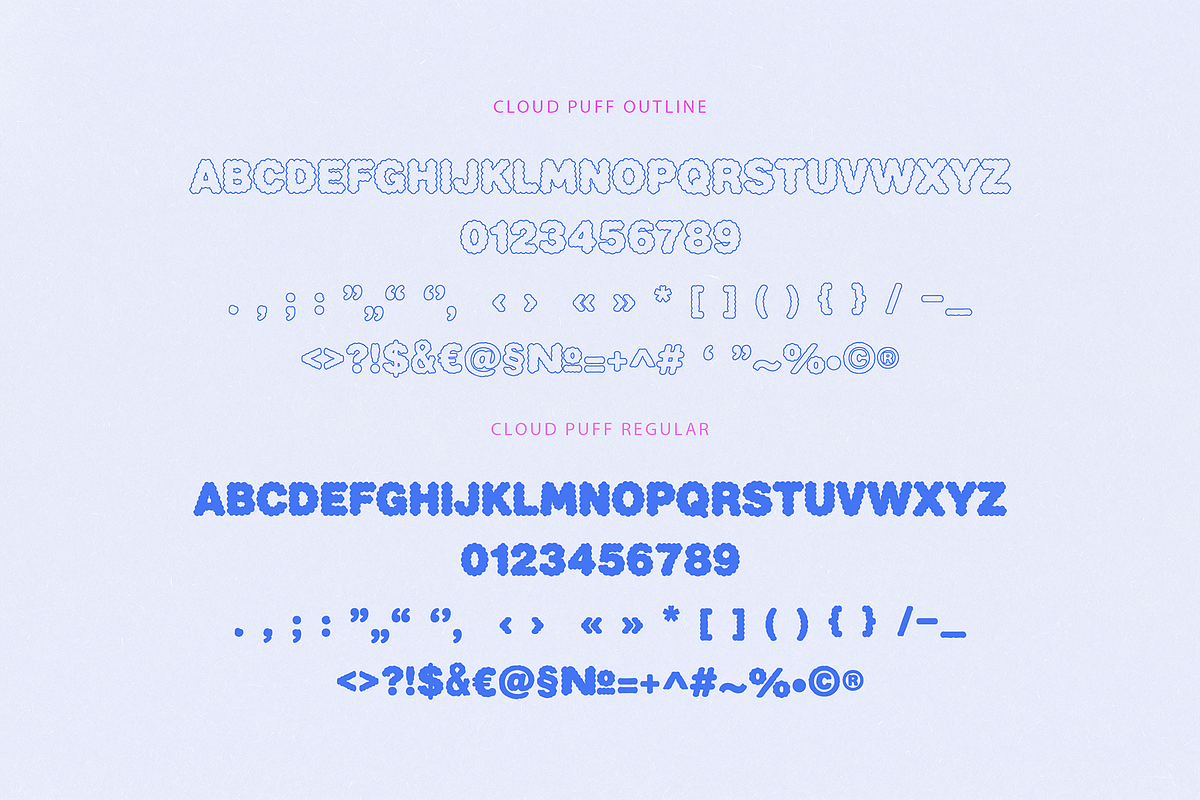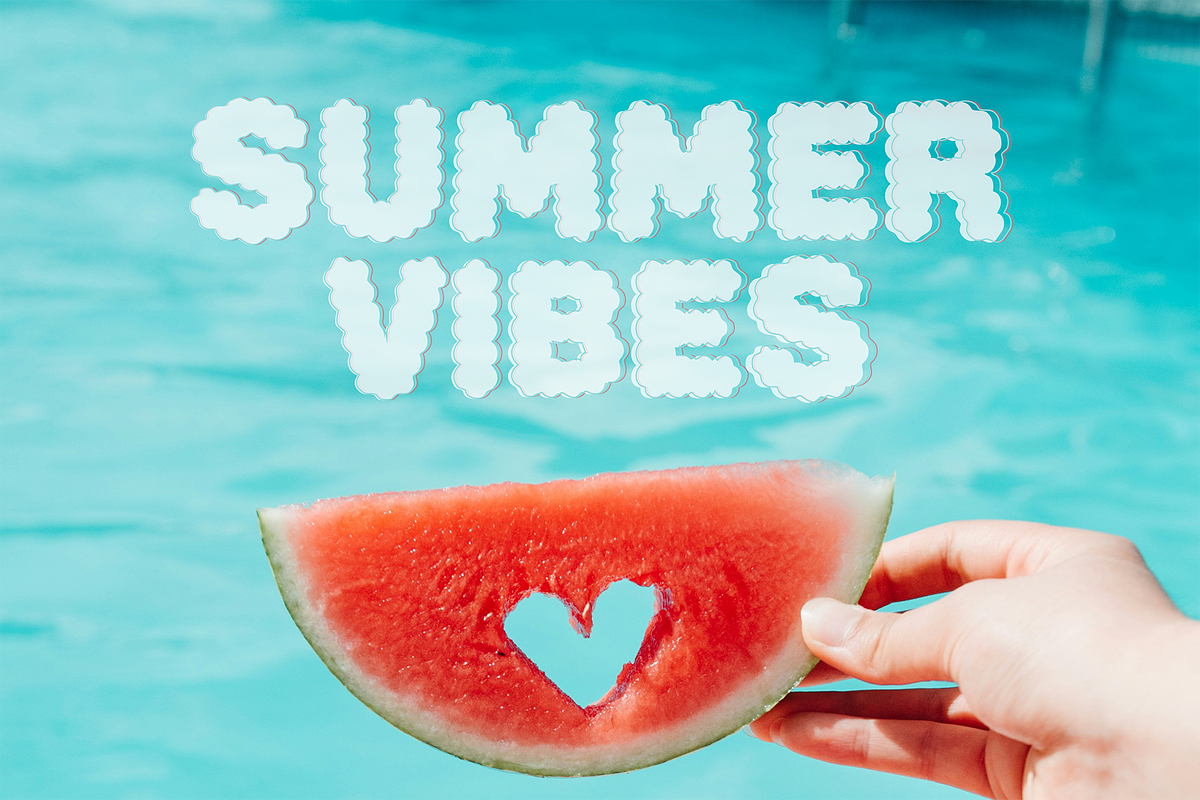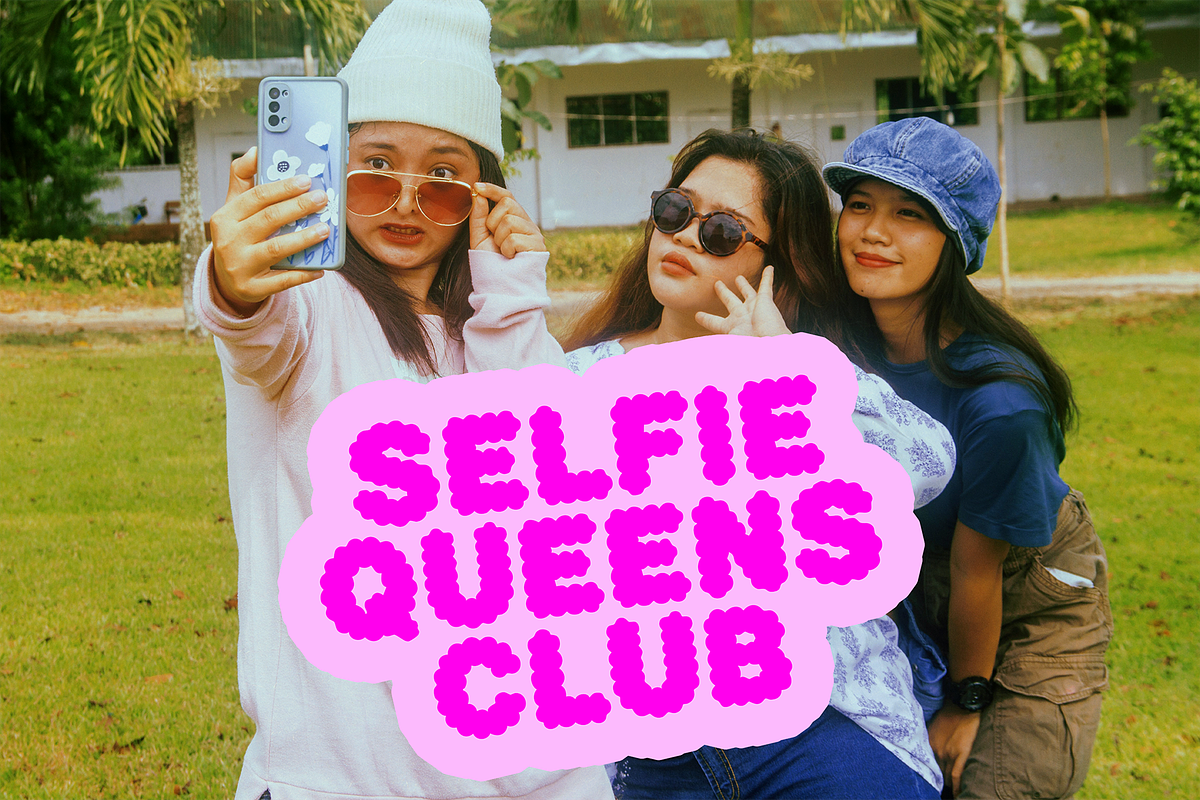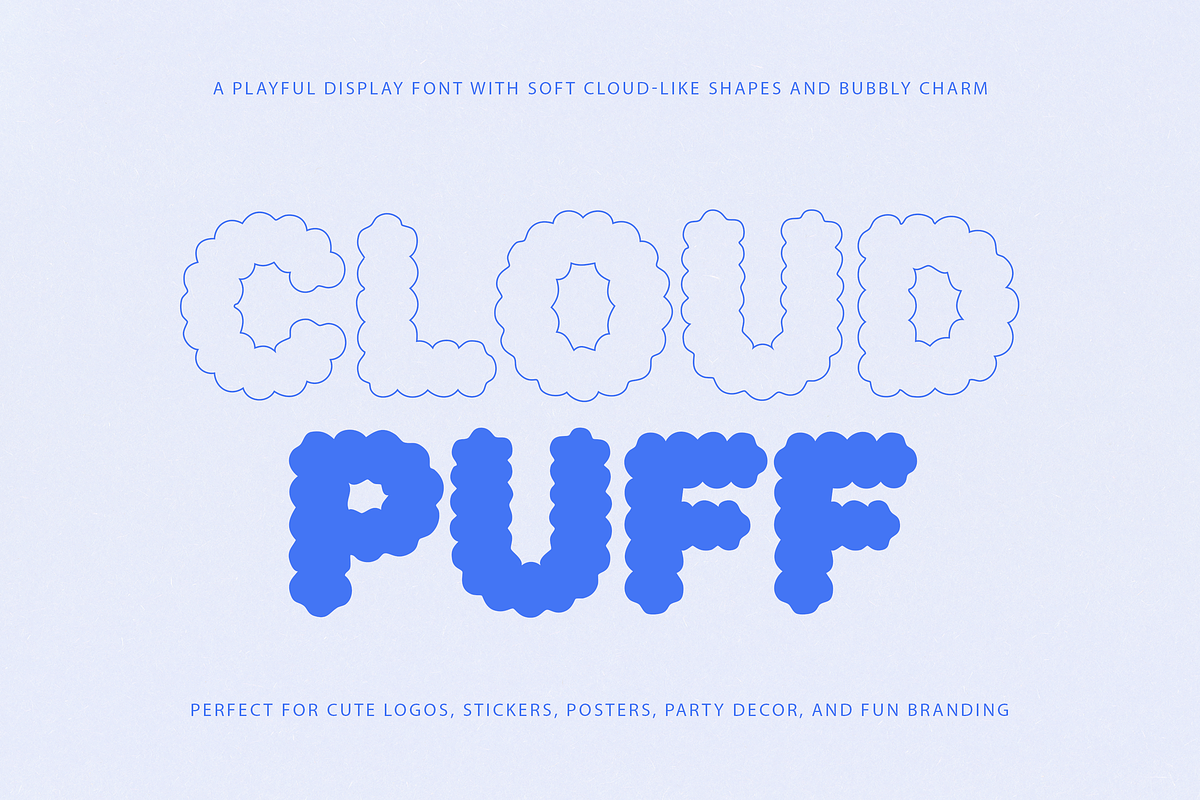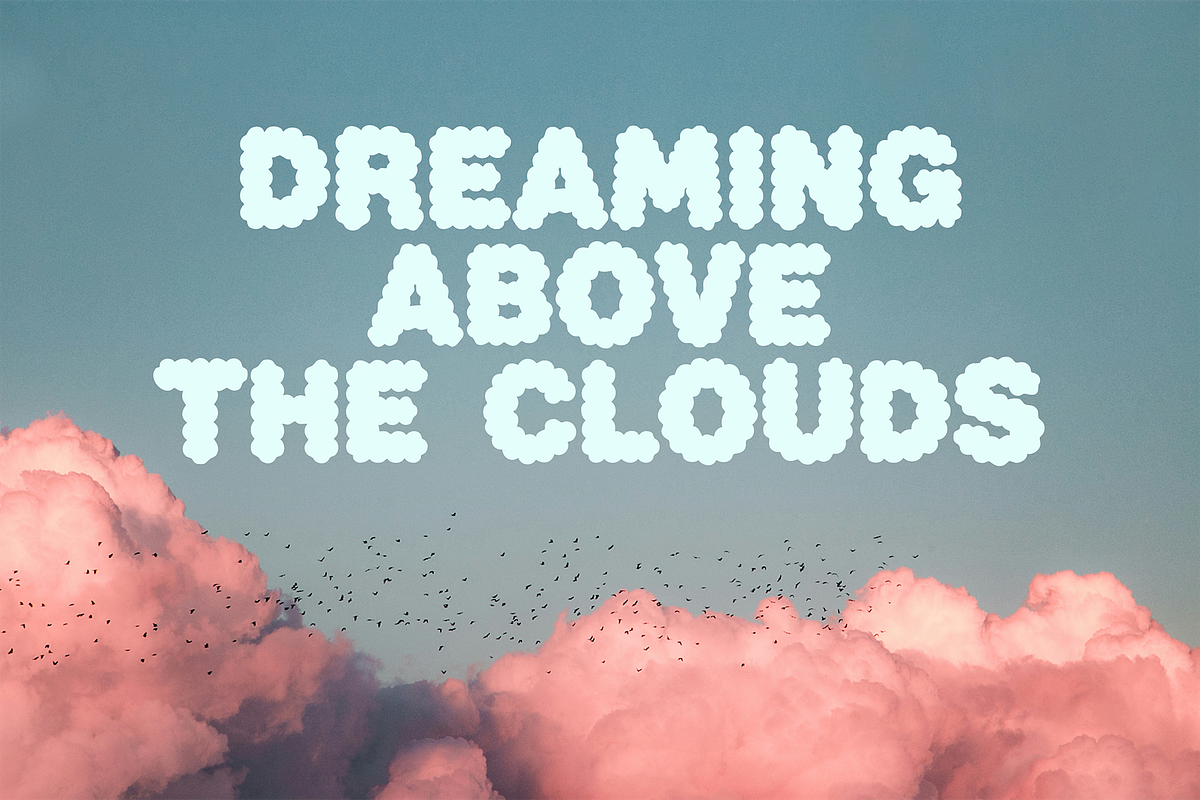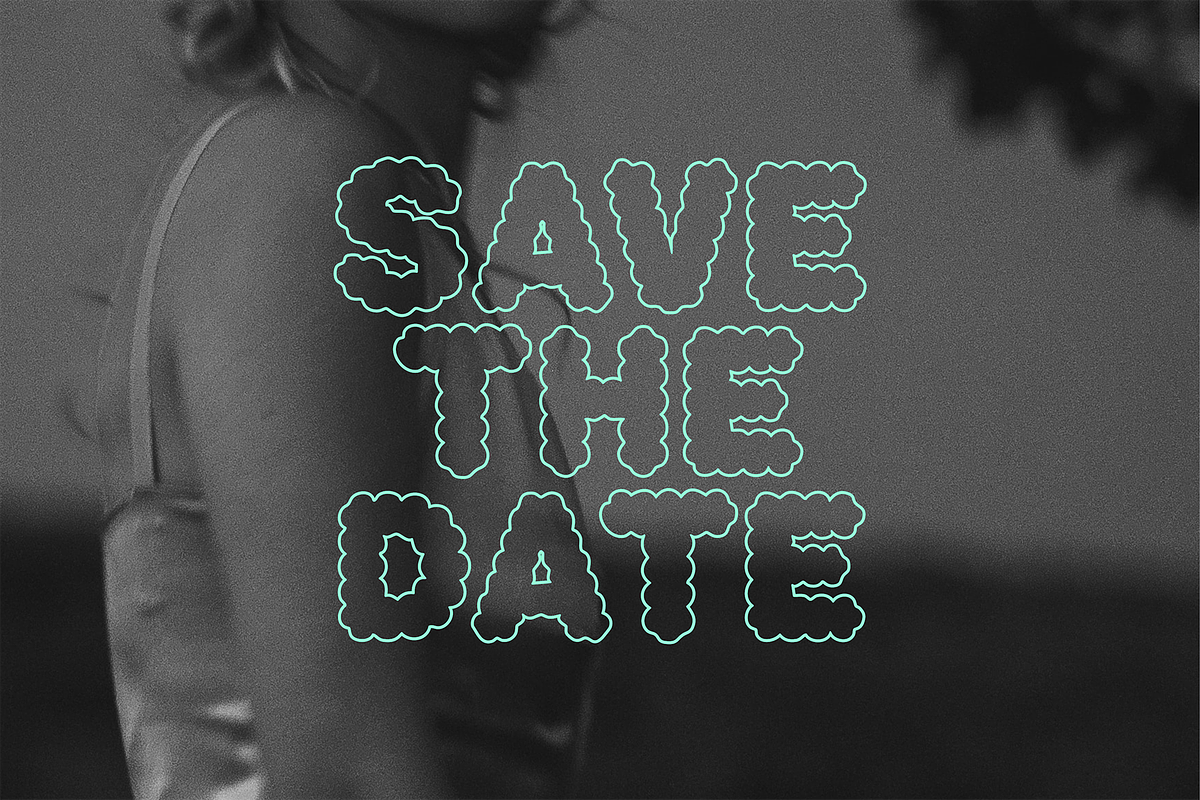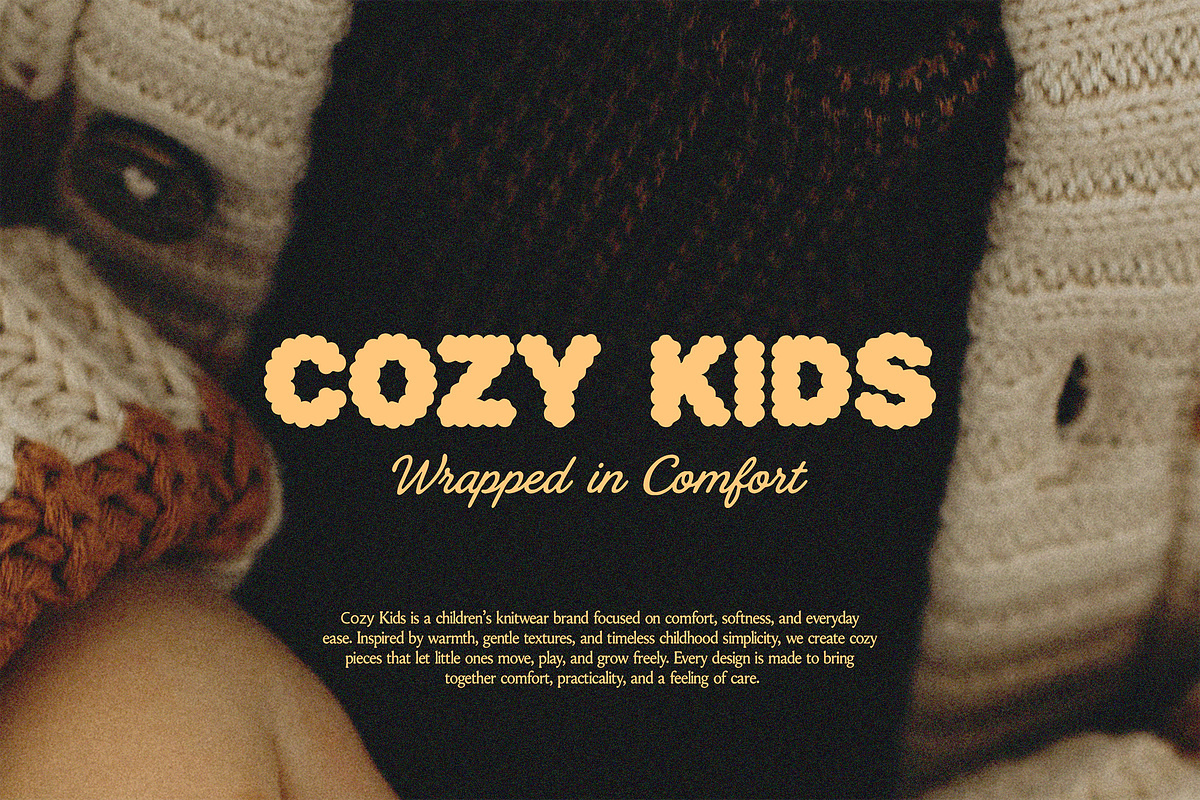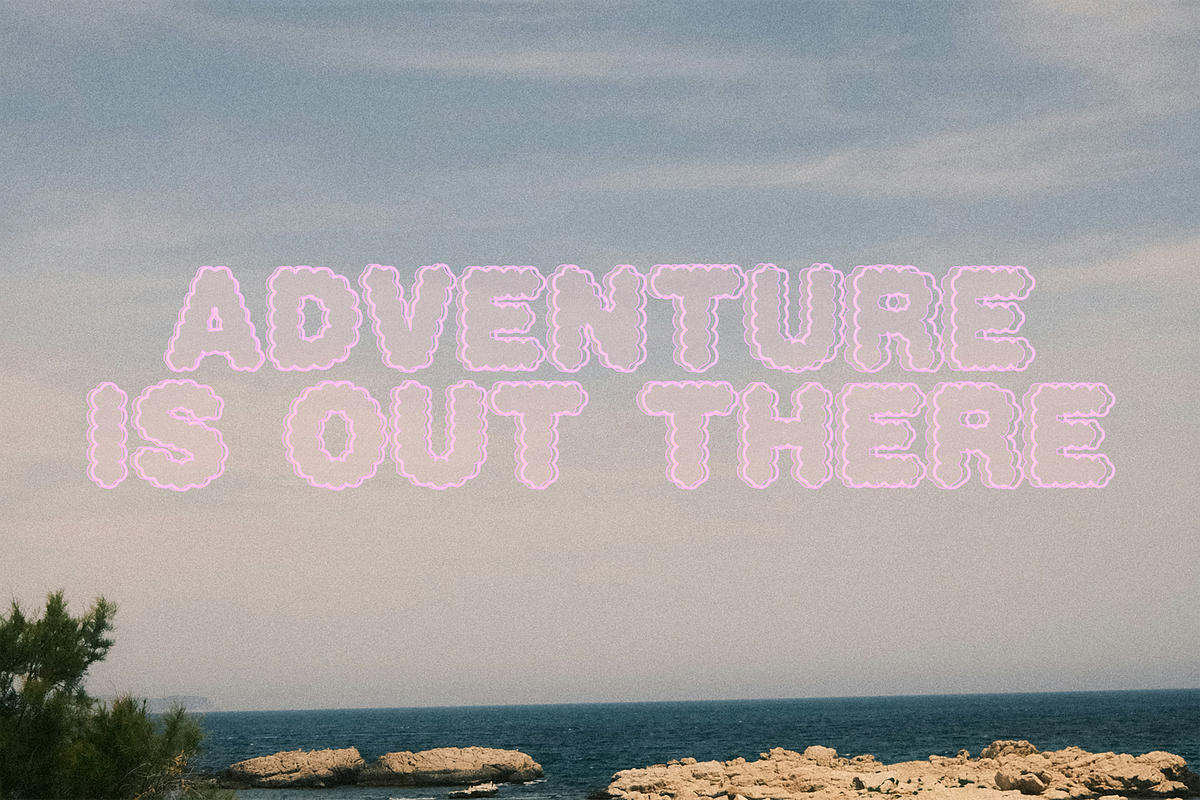
Cloud Puff Font
Meet Cloud Puff - a playful CAPS ONLY display font with soft cloud-like shapes, bubbly curves, and a cheerful handmade feel.
This font is perfect for cute logos, stickers, posters, party invitations, kids’ designs, packaging, social media graphics, Cricut projects, and fun branding.